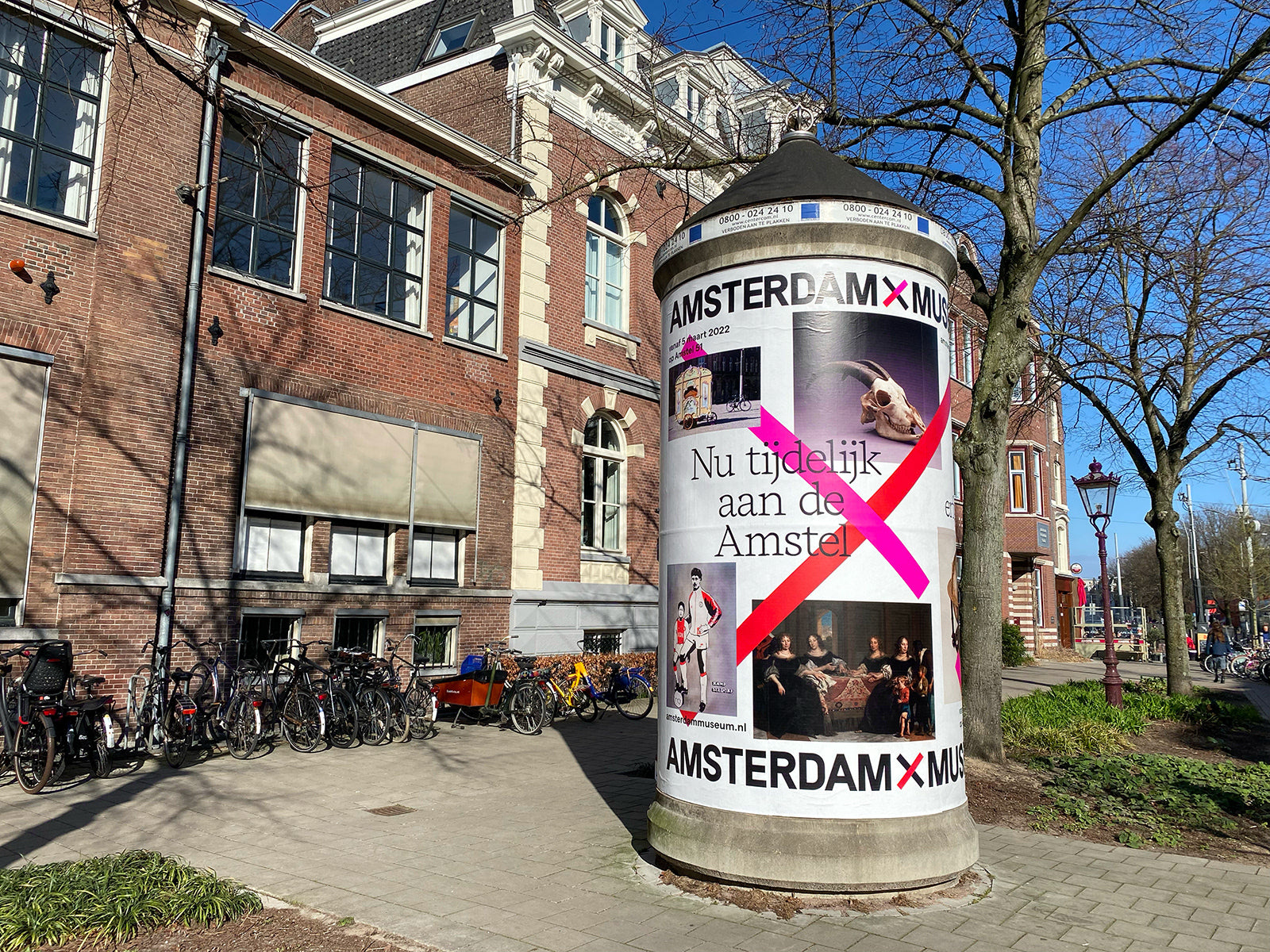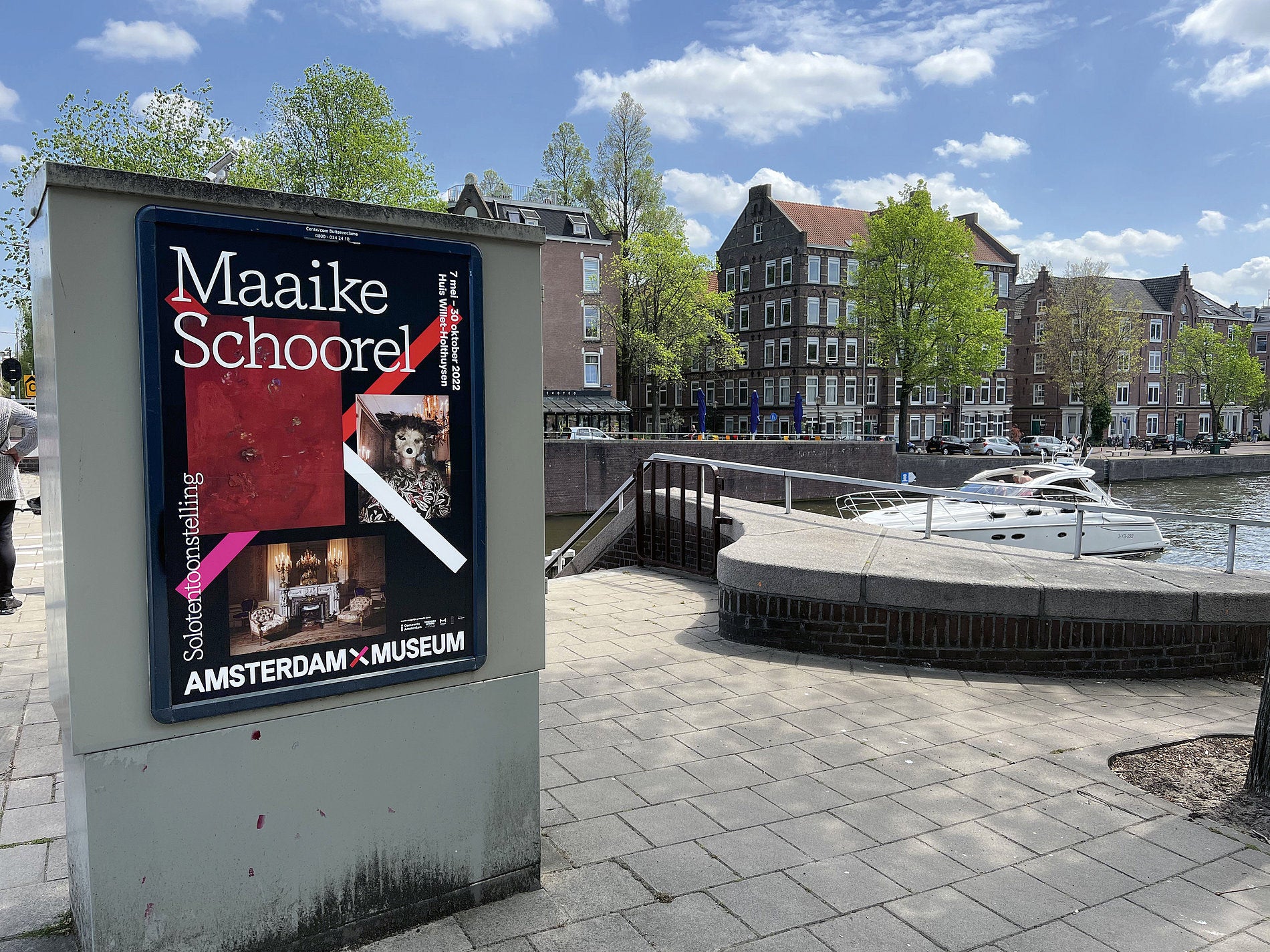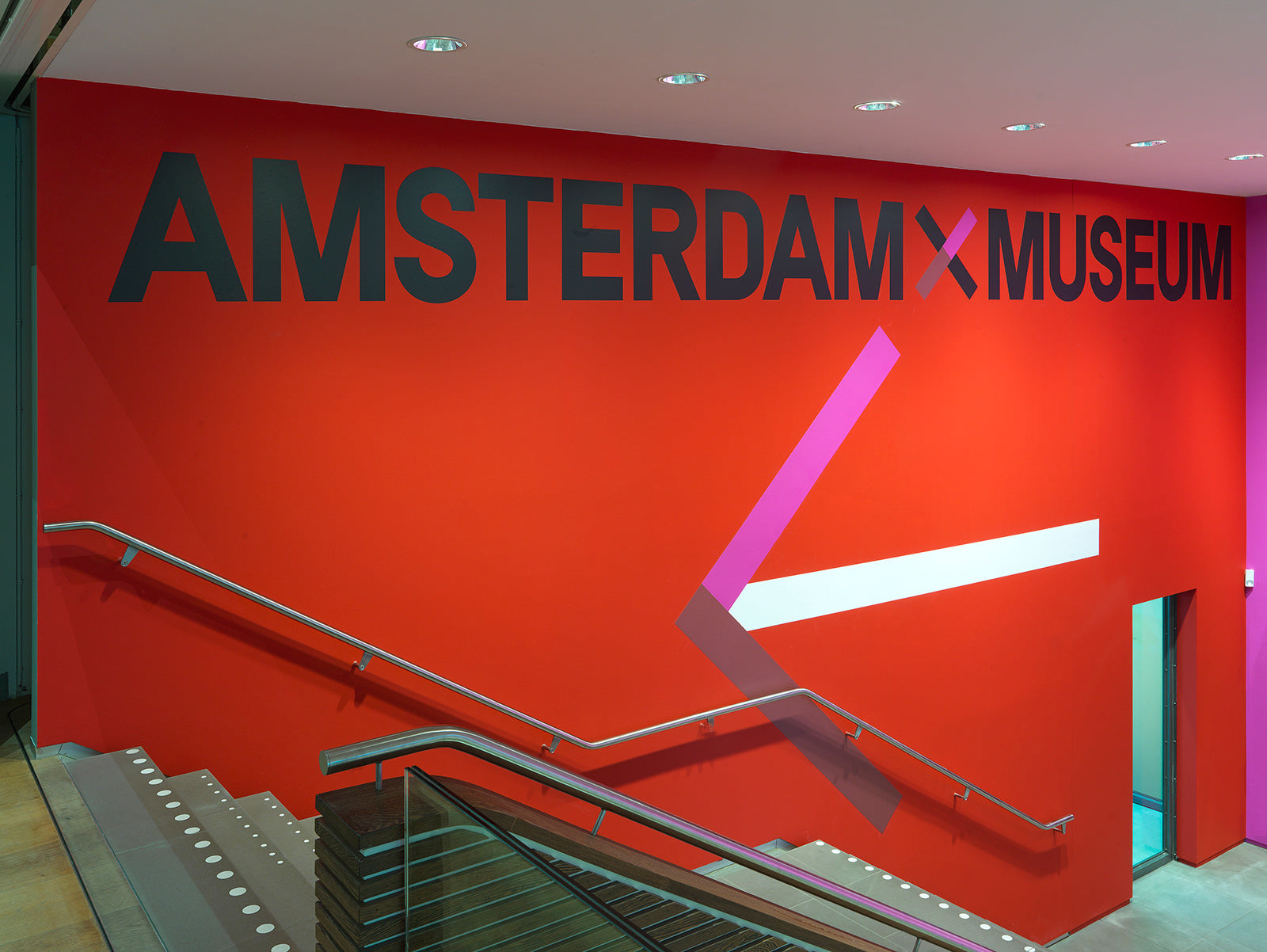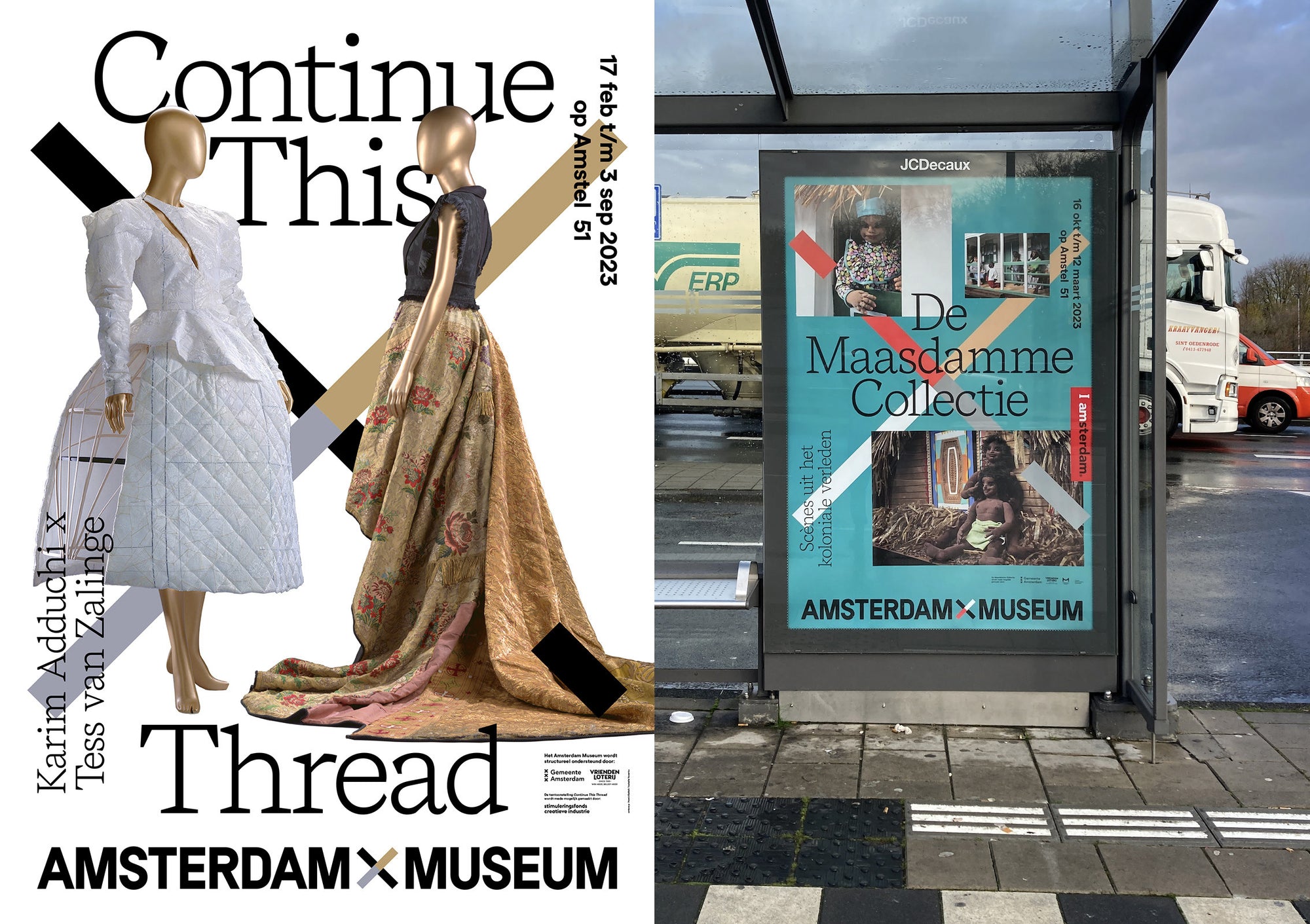
Amsterdam Museum
Parade One – Amsterdam Museum
In 2021, we created a custom adaptation of the Parade One typeface to support the new visual identity of the Amsterdam Museum. The work focused primarily on the wordmark, with the design of a new M crafted to integrate seamlessly into the whole while asserting the museum’s unique character.